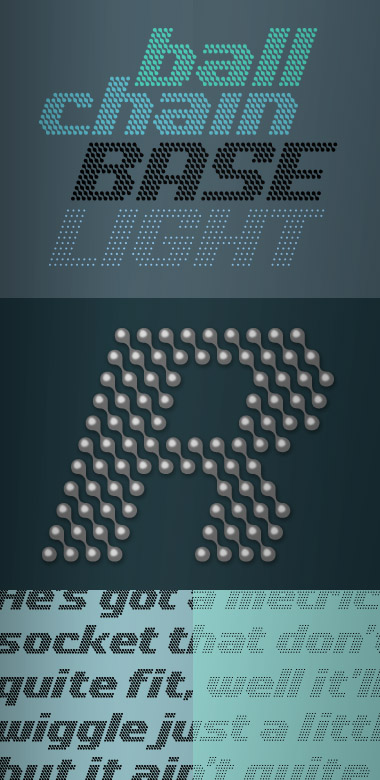
I missed this gem (I have been out of action recently with a trapped nerve in my back). This is great. 10/10
This is really nice.
I'm with the guys! Really, really nice job!
I missed this because i've been grounded for a few days. Really awesome font!
Beautiful patterns!
Awesome :D
Nice font. 10/10.
Absolutely wonderful and highlights are superb!
@everyone… Thanks for the support! This one isn't ground-breaking by any means, but it could prove useful for signage or other larger applications. It's something I had laying around and felt compelled to flesh out. Now that this “80's automotive meets 90's rave flyer” font is out of my system, I can get back to more serious efforts… like clowns… or something.
Congratulations! FontStruct Staff have deemed your FontStruction worthy of special mention. “Ball Chain” is now a Top Pick.